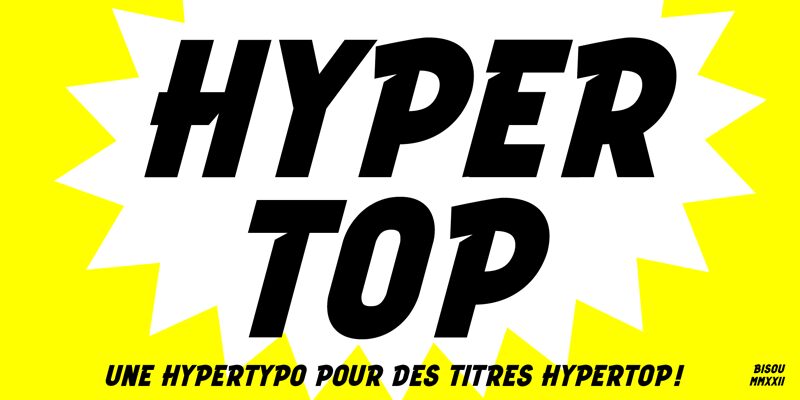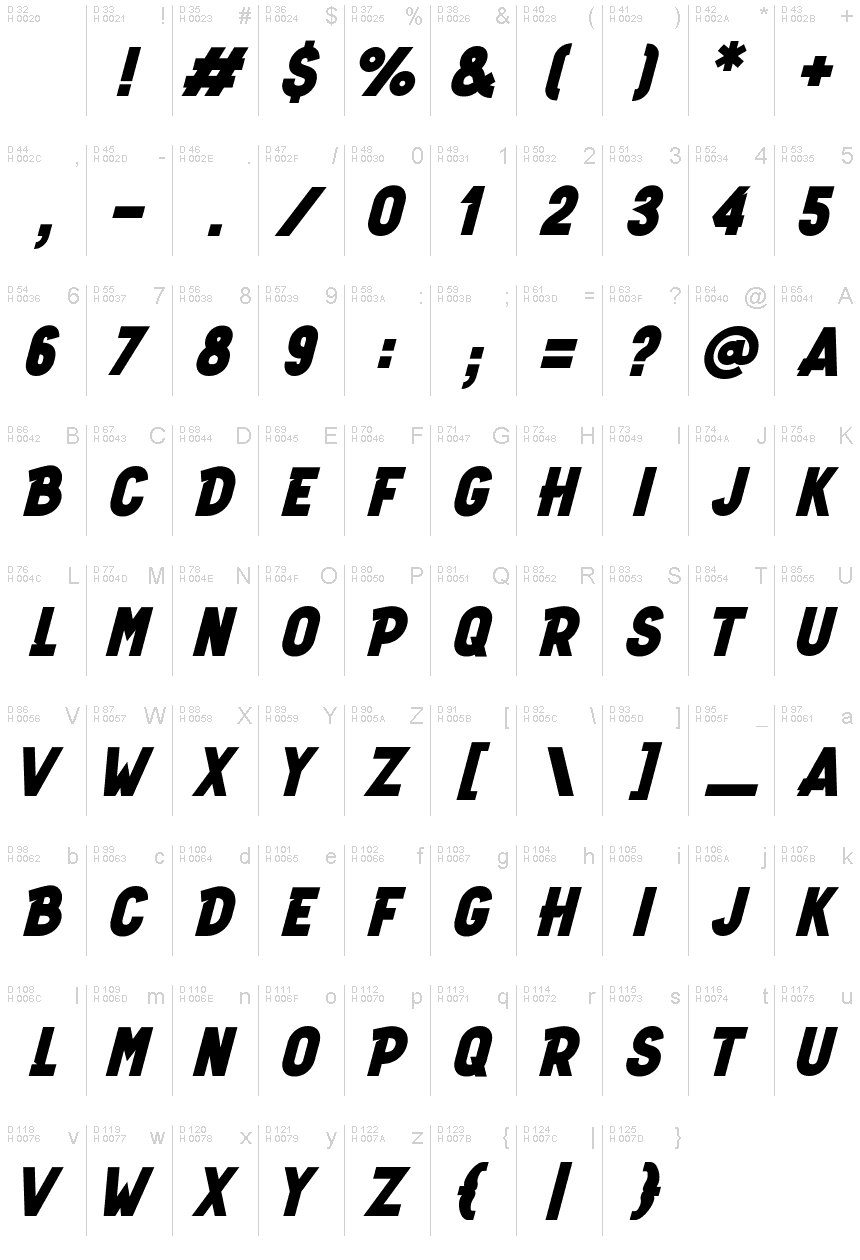
HyperTopItalic
Hyper Top Italic, from the Hyper Top font family, is a bold display typeface crafted by the talented Bisou. This font's dynamic italic stance exudes energy and forward motion, making it an excellent choice for impactful headlines and attention-grabbing statements. The bold weight of Hyper Top Italic ensures high visibility and legibility, which is essential for display purposes.
With its assertive slant and strong character forms, this font radiates confidence and modernity. Its aesthetic appeal lies in its ability to marry the urgency of italicized fonts with the stability of a bold typeface. The result is a font that stands out without sacrificing readability.
The versatility of Hyper Top Italic makes it suitable for a wide array of creative projects. Whether it's branding, advertising campaigns, or digital media that demand a typeface with presence, this font delivers with style. Its distinctive appearance can help convey messages with an edge of sophistication while maintaining an approachable vibe.
In summary, Hyper Top Italic is not just another addition to your font library-it's a statement maker that can elevate your designs to new heights with its unique blend of style and substance.